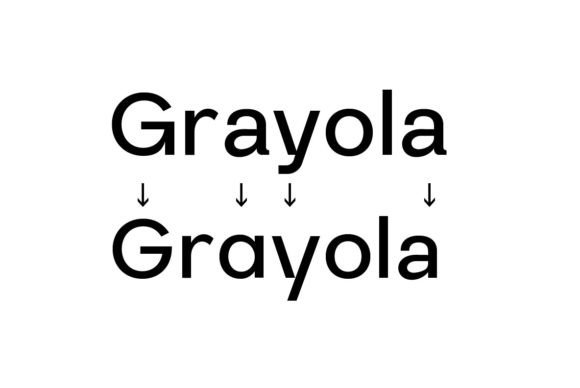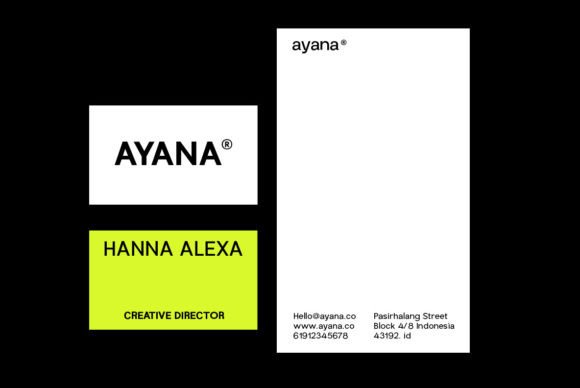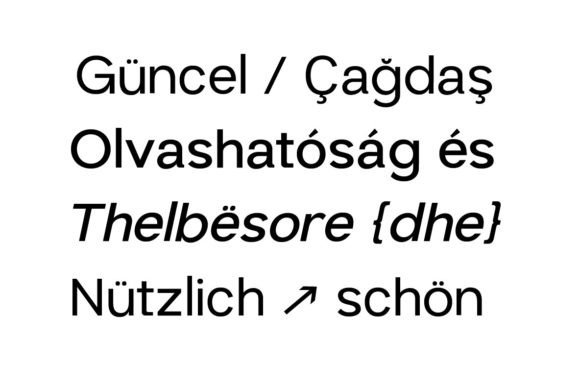
Introduction to Mandau Font
As a designer, there’s nothing quite like the thrill of discovering a new font that sparks creativity and elevates your projects to the next level. For many of us, this moment comes when we stumble upon a design resource that perfectly captures the essence of our vision. That’s exactly what happened when I discovered the Mandau Font – a stunning sans serif font that has since become my go-to choice for a wide range of creative projects.
With its sleek and modern design, the Mandau Font is the perfect addition to any designer’s toolkit. Its clean and geometric letters feature sharp edges and subtle curves, giving it a unique and sophisticated appearance that’s sure to impress. Whether you’re working on a branding project, designing a website, or creating editorial content, the Mandau Font is the perfect choice for bringing your ideas to life.
- High-quality font design for creative projects, offering a unique and modern aesthetic.
- Features a high-resolution design, ensuring crisp and clear text display at various sizes and resolutions.
- Perfect for use in graphic design, digital art, and other creative pursuits, thanks to its clean and elegant design.
Honest Review: Mandau Font
I recently stumbled upon the Mandau Font and was excited to give it a try for my latest creative project. As a designer, I’m always on the lookout for high-quality design resources that can help elevate my work.
The Mandau Font is a free download, which is a major plus in my book. I love that I can experiment with it without breaking the bank. One of the standout features of this font is its sleek and modern design, perfect for a variety of creative projects. The transparent background makes it easy to customize and pair with other design elements.
- ✨ Sleek and modern design perfect for creative projects
- ⚠️ Limited font styles available (only a few options)
- ⚠️ Not suitable for complex or detailed typography
Overall, I’m impressed with the Mandau Font. While it has some limitations, its unique design and free download make it a great addition to any designer’s toolkit. I’d definitely recommend it for simple creative projects where a modern, sleek font is needed.
For best results, use the Mandau Font on a transparent background to allow for easy layering and composition. Experiment with different font sizes and colors to create a visually appealing design. You can also combine the Mandau Font with other high-quality fonts to create a unique and creative look.
The Mandau Font is ideal for use in creative projects such as logos, posters, and infographics. It is also suitable for use in business presentations and reports, where a high-quality and professional font is required.